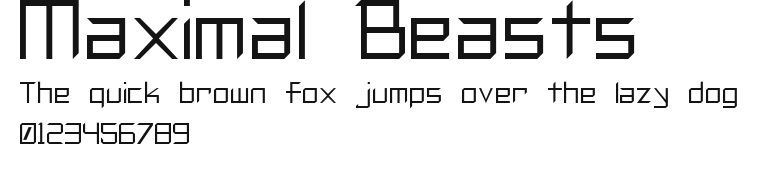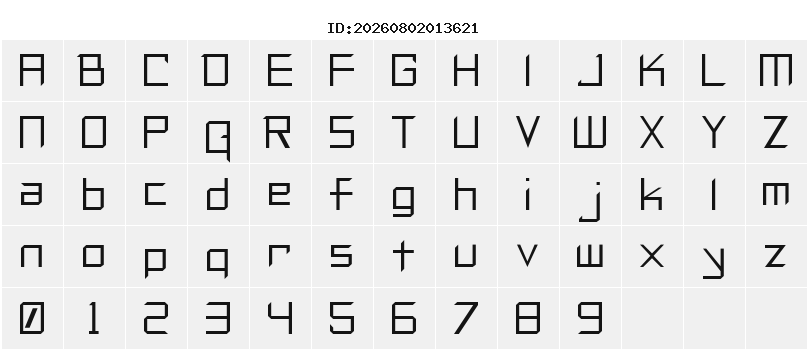
Maximal Beasts Preview
• Font Name: Maximal Beasts
About Maximal Beasts.ttf
Maximal Beasts.ttf is a modern, elegant sans-serif font designed for ultimate readability and visual harmony. Perfect for branding, headlines, web design, and print materials.